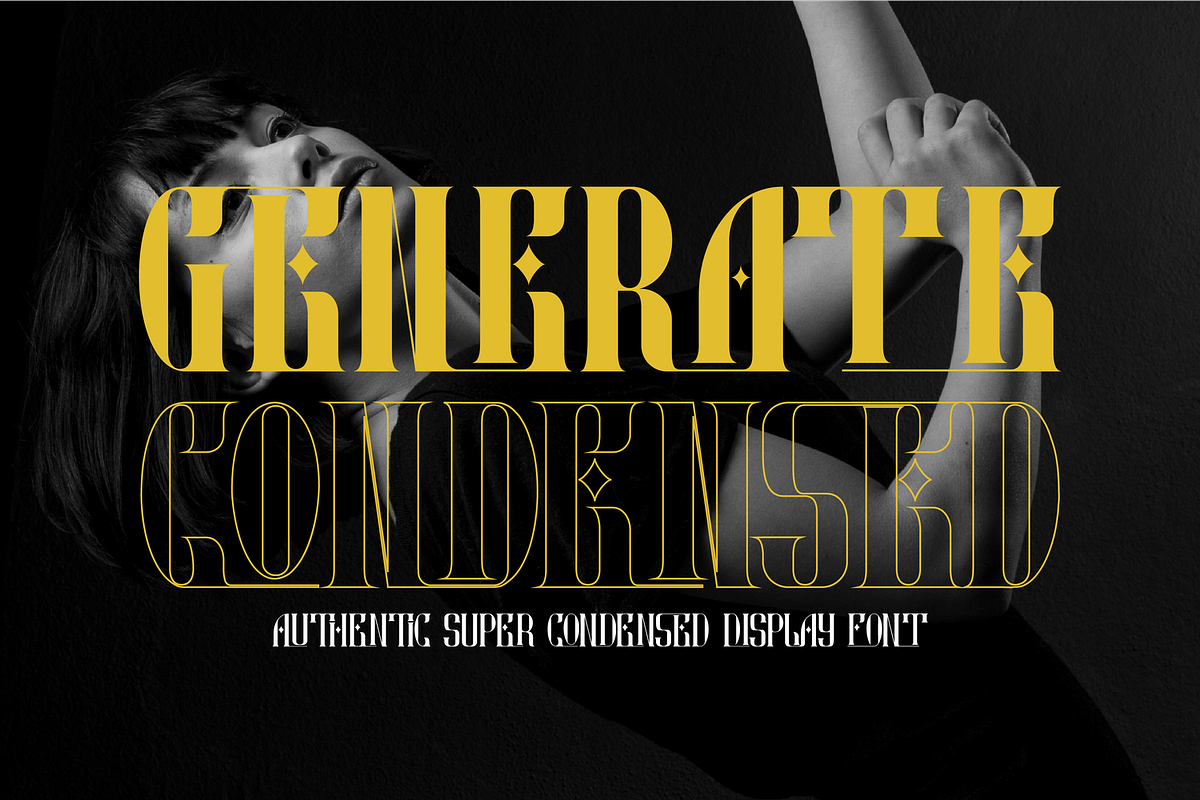
Generate Condensed Font Free Download is a bold and modern typeface crafted for maximum impact in minimal space. With its tall, narrow letterforms and clean lines, this font is perfect for posters, headlines, branding, packaging, and digital designs where space-saving style is essential.
Its strong geometric construction ensures clarity and power, even in tight layouts. Whether you’re designing for sports branding, tech startups, editorial content, or impactful social media graphics, Generate Condensed delivers sleek professionalism and confident energy.
Designers love Generate Condensed for its versatility, readability, and bold presence across both print and digital platforms. Ready to streamline your typography without sacrificing power? Download Generate Condensed Font Free Download and energize your next project with sharp, space-efficient style.